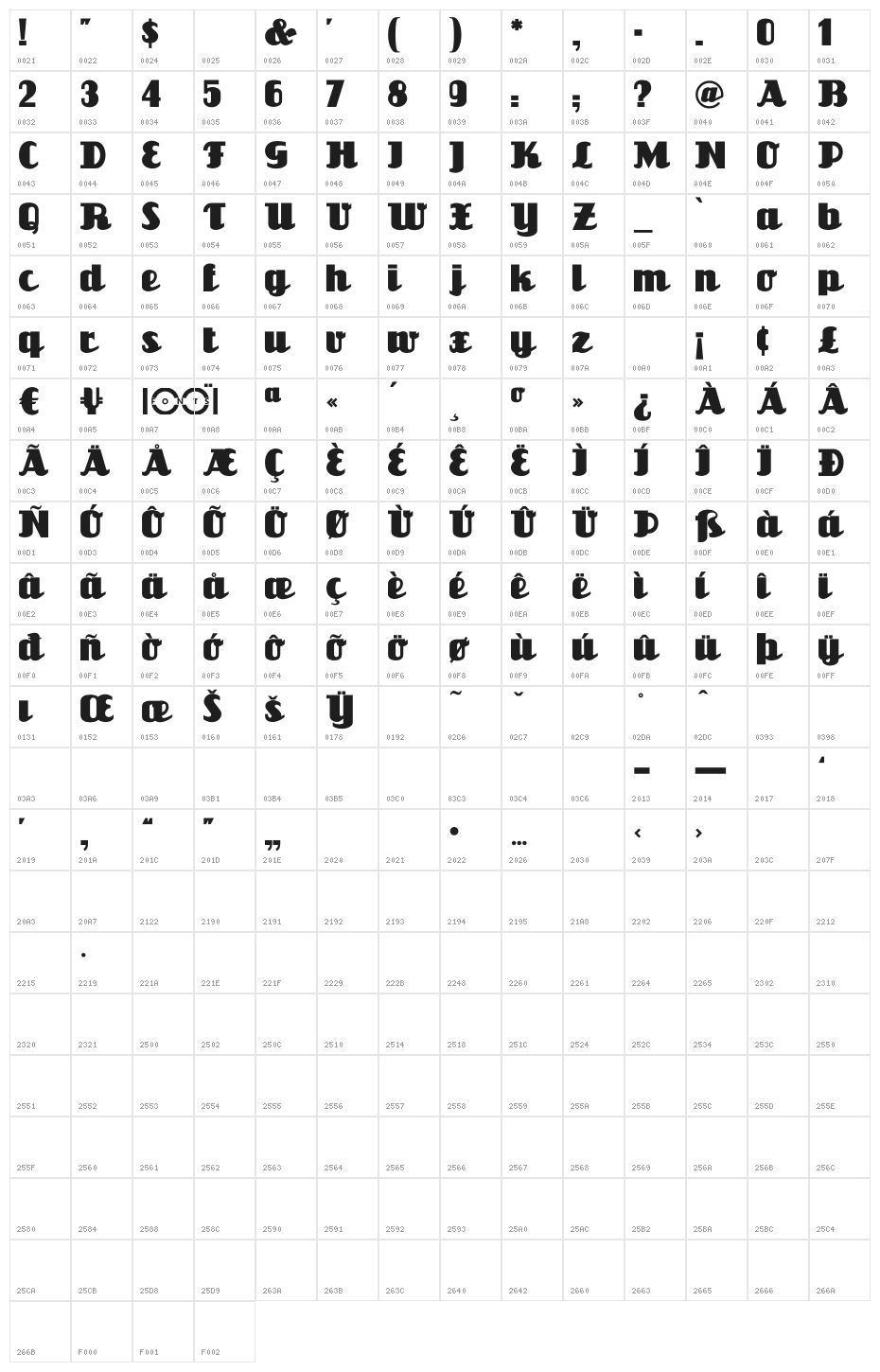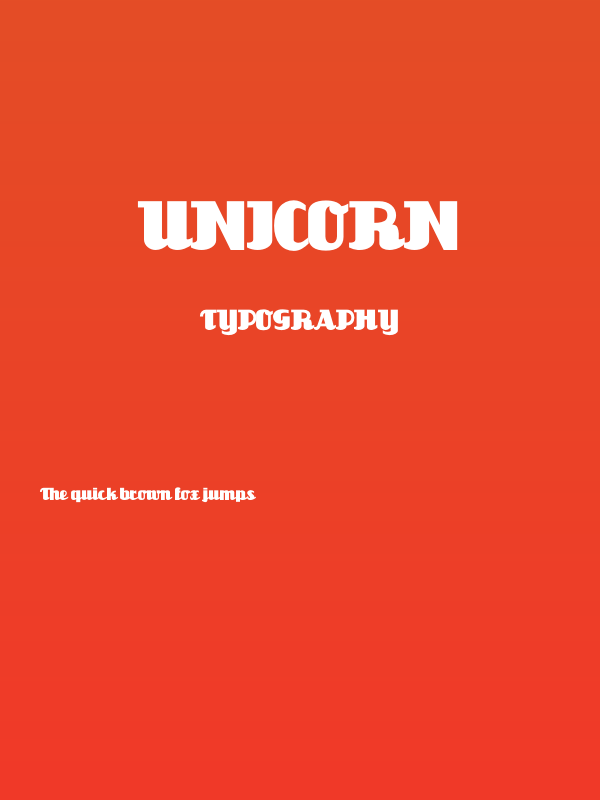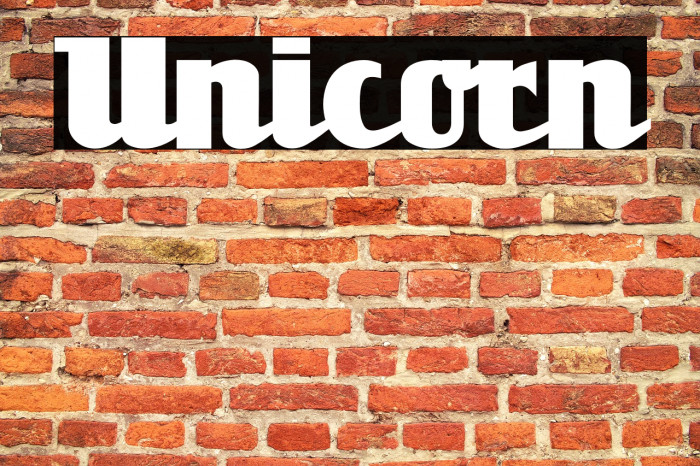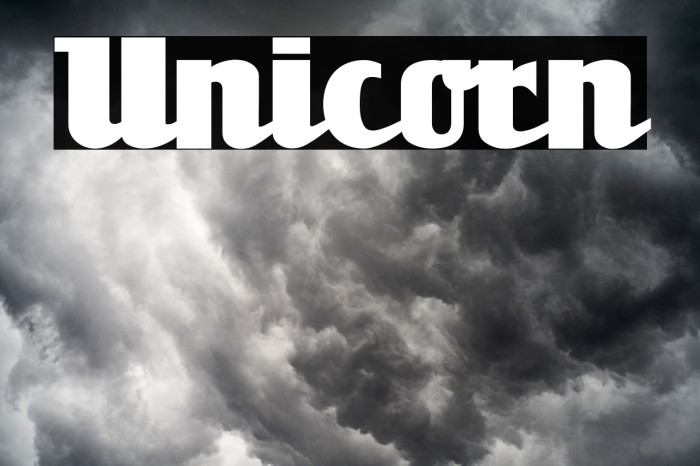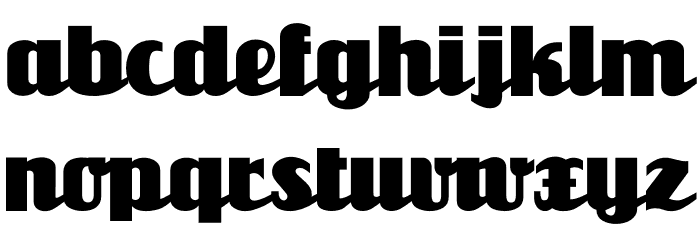
Unicorn Font
Unicorn Description
This font features bold, thick strokes with a strong presence, making it ideal for impactful designs. The characters have a unique, slightly curved style that adds a touch of elegance while maintaining a robust appearance. The uppercase letters are particularly striking, with a consistent weight that enhances readability. The lowercase letters complement the uppercase with a similar boldness and slight curvature. Numbers and special characters are equally bold, ensuring they stand out in any context. This font is perfect for projects that require a strong, confident look.
| Proposed Projects | Ideal for branding, headlines, posters, and any design needing a bold statement. |